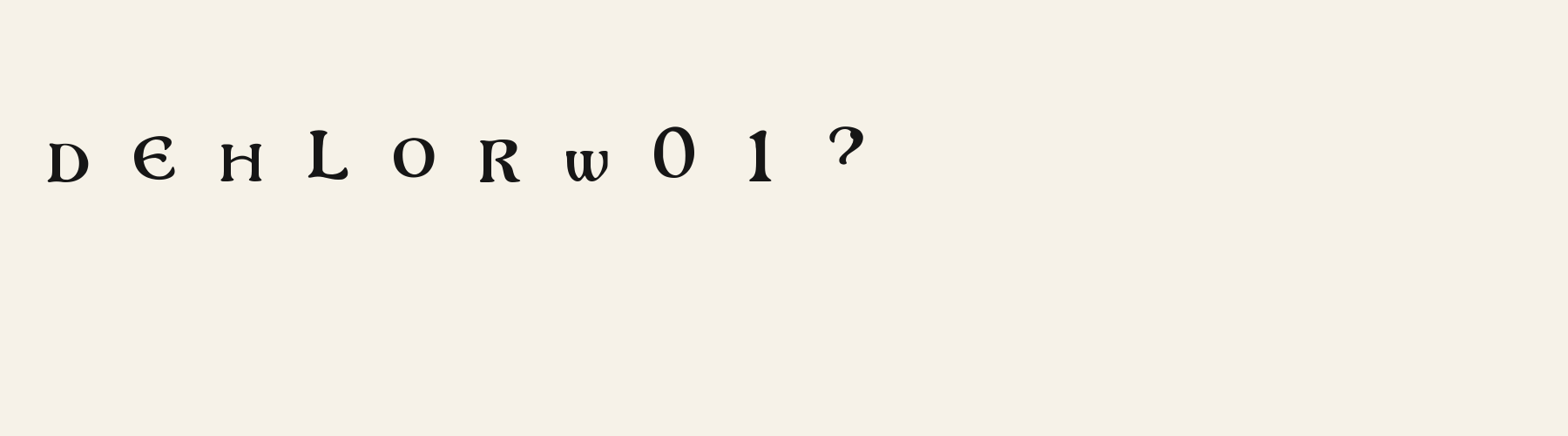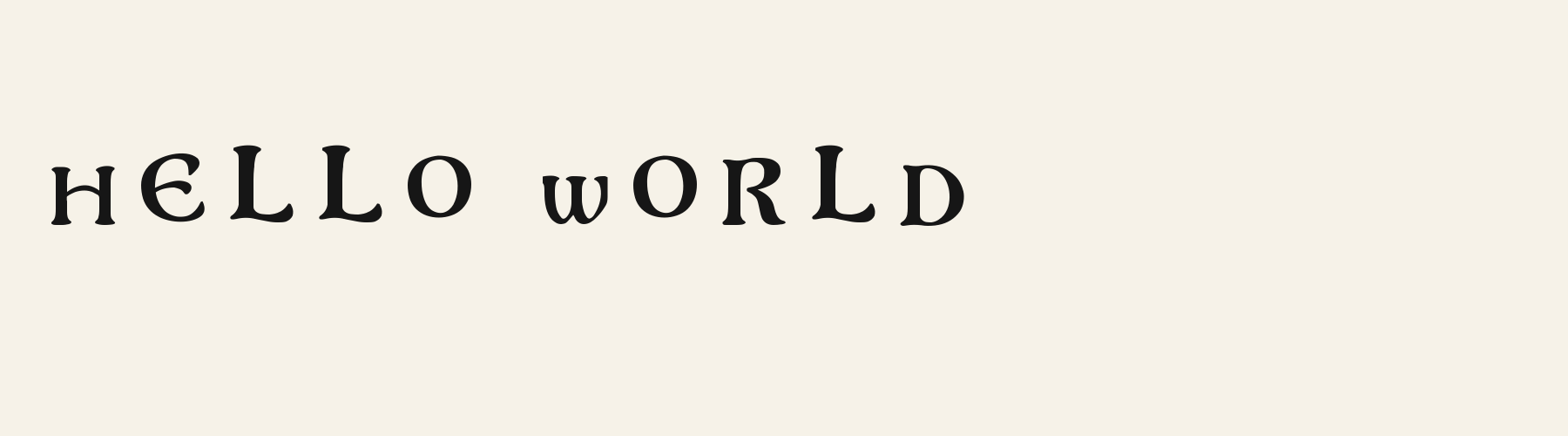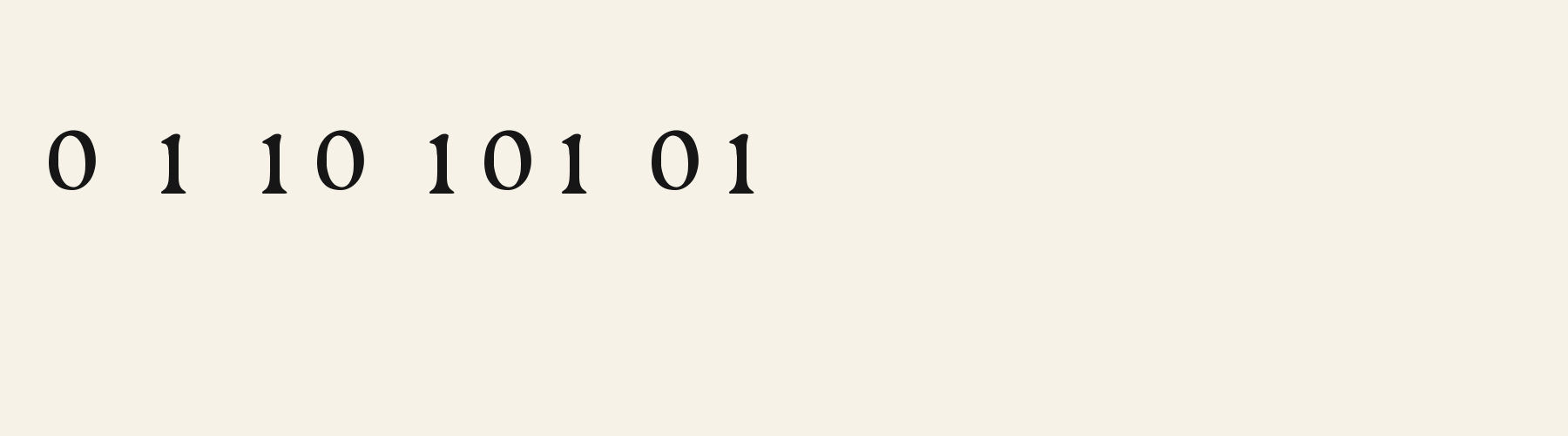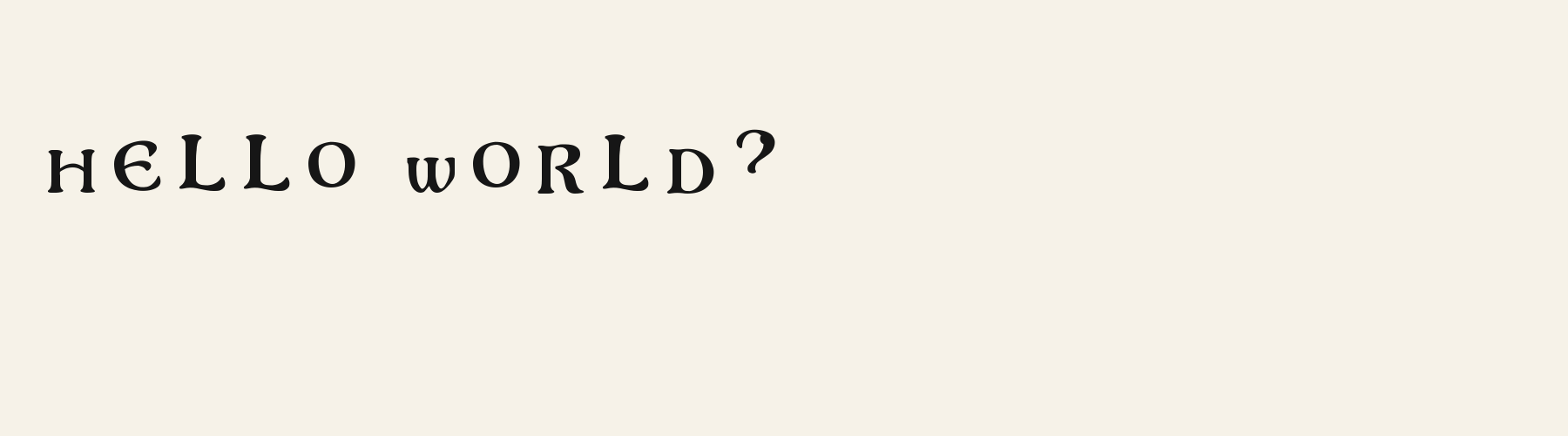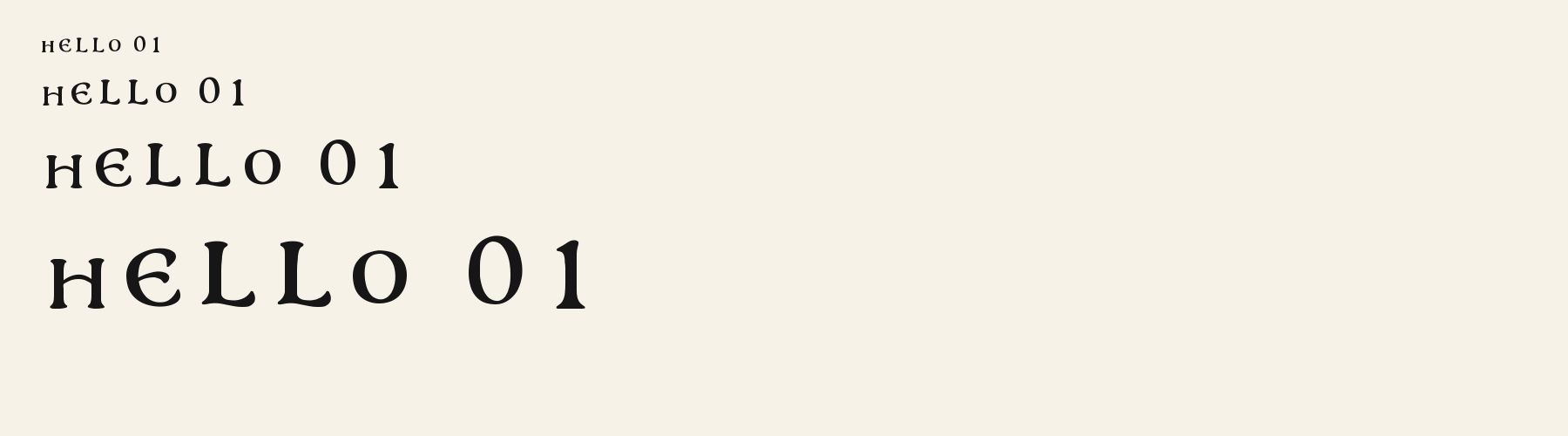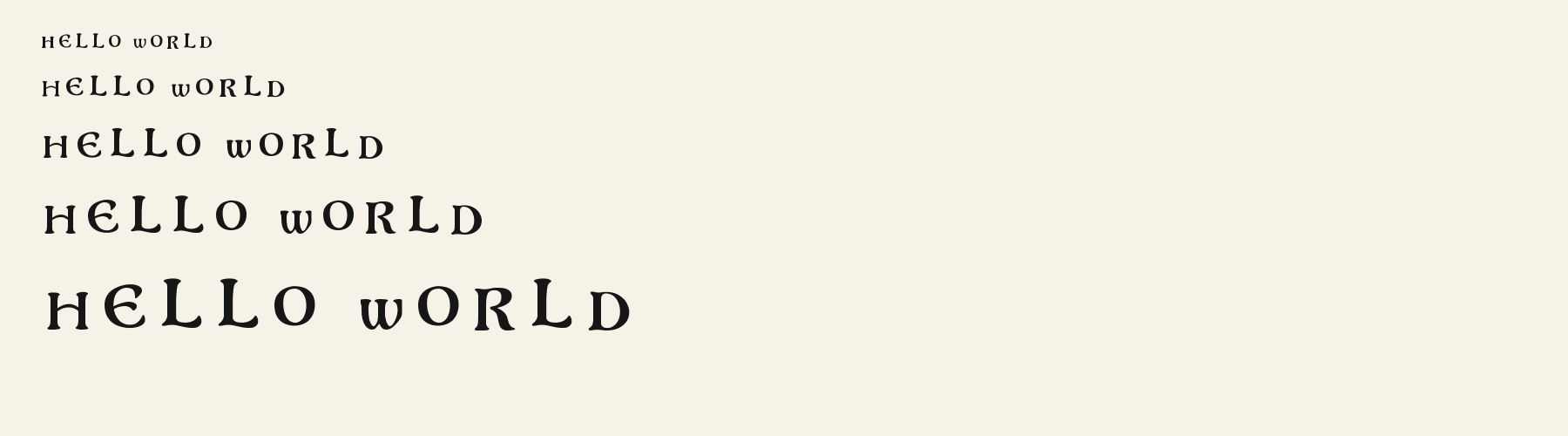
Gothic Uncial Open Arched Bar Wedge Display Font
Gothic Uncial Open combines broad, rounded capitals with thick upright strokes and gently tapered curves.
Arched Bar Wedge Display Letterforms
Gothic Uncial Open combines broad, rounded capitals with thick upright strokes and gently tapered curves. The H lifts its crossbar into an arch, while the E curls inward like an epsilon rather than extending straight horizontal arms. The W turns through rounded lower bowls, giving a softer rhythm beside the sturdy L and its spreading foot. Thick sides and thin tops shape the O, leaving a generous oval counter inside its dark outline. Flared, wedge-like feet and softened stroke endings give the lettering a ceremonial, storybook mood without the dense angular texture of blackletter.
Inspect the arched H, curled E and rounded W in your actual wording, then check repeated L feet and word gaps. Try punctuation and numerical alignment separately. These specimens show Latin capitals; check lowercase and any other required scripts independently.
Try this face for short headings, with a plain sans serif for supporting text and interface labels. Its broad bowls, heavy stems and curved E already supply strong character, so a companion with simpler shapes can keep practical information distinct.
Gothic Uncial Open: letterforms and layout
Compare the original spacing with a slightly wider setting. The broad O and repeated L feet create different pockets of white space; inspect whether added spacing separates the letters comfortably while keeping each word together.
In this uppercase phrase, Gothic Uncial Open uses solid strokes, an arched H crossbar, a rounded E and softly turning W bottoms. Its broad counters leave generous interior space while the dark stems give the words substantial weight.
Book or album cover. Broad bowls and weighty stems give a fantasy cover title presence, while the rounded W keeps the silhouette flowing. ELDER ELIXIR
Product label. The curled E and spreading L feet give an ornamental product label a distinctive, storybook character. WINTER REVEL
Card or invitation. Rounded turns and flared stroke endings bring a ceremonial mood to a short invitation heading.
About Gothic Uncial Open
With an x-height of 77.2% of the cap height, its lowercase stands above the 74.4% median for decorative fonts, taller than 26 of the 36 other decorative fonts. Ascenders on b, d, h, k and l rise 12.2% above the capitals, and descenders on g, j, p, q and y drop 30.6% of the cap height below the baseline, deeper than 33 of the 36 other decorative fonts. It sets wide: an average lowercase letter, spacing included, is 100.1% as wide as the capitals are tall (an average capital, 106.1%), 31.5% more than the median for decorative fonts, so the same words take a longer line. The o is close to a circle, 1.14 times as wide as it is tall, and W is the widest capital, at 1.13 times the width of H. The O stops 1.1% of the cap height short of H and dips 1.1% below the baseline.
The letters stand upright, leaning less than 2.5° either way. Vertical stems measure 20.2% of the cap height, the heaviest of all 24 decorative fonts. Ink covers 35.3% of each lowercase letter's box (its advance width by the cap height), lighter than 21 of the 36 other decorative fonts. Strokes change thickness with direction: the sides of o and O are 3.3 times as thick as their tops and bottoms.
Its 95 characters include 52 Latin letters, plus 43 figures, punctuation marks and symbols; there are no accented Latin letters beyond A to Z. The word space measures 49.5% of the cap height, and the blank space either side of a lowercase letter takes up 9.8% of its width. The font carries no kerning, so spacing comes from each letter’s own side bearings. The figures have different widths, so columns of numbers set in Gothic Uncial Open will not line up exactly.